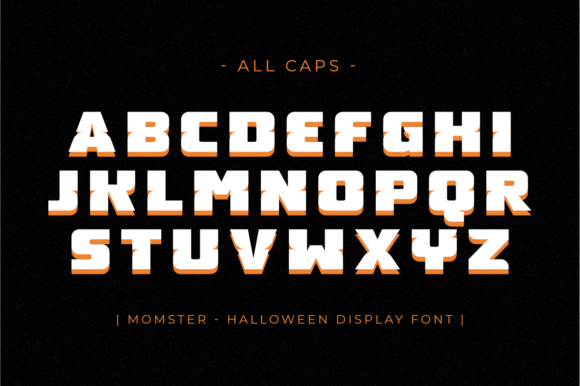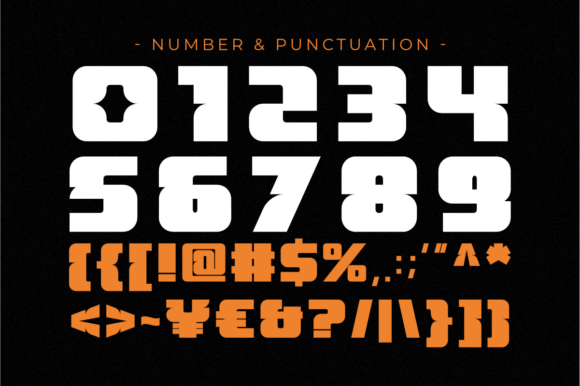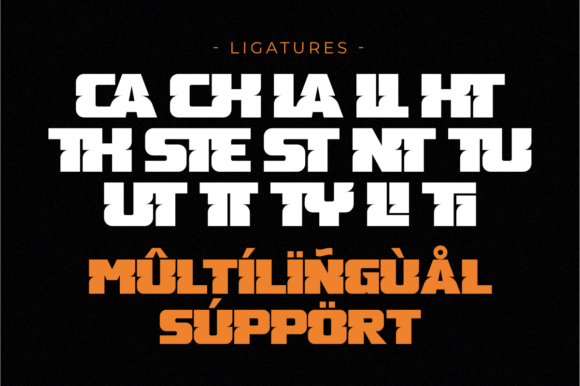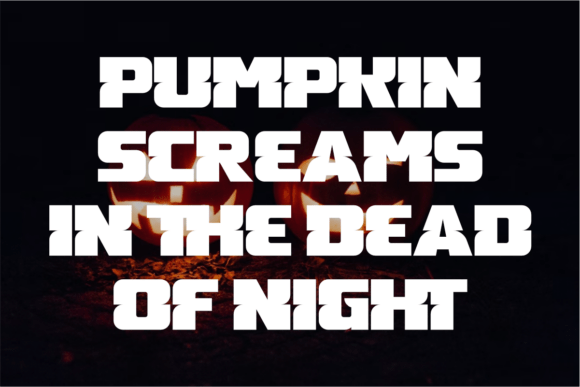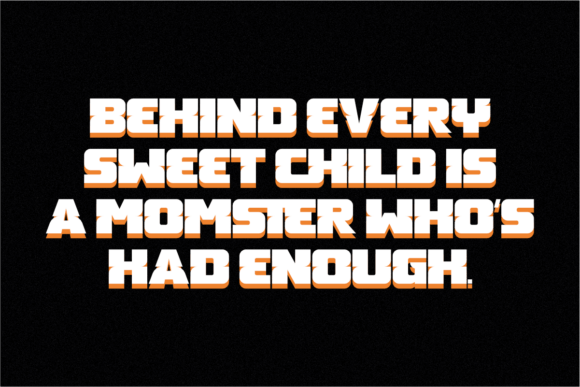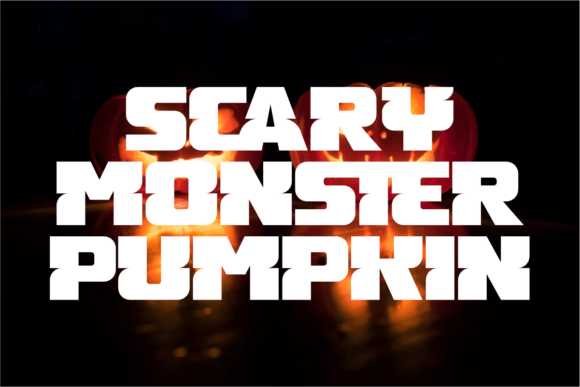
Introduction to Momster Font
As designers, we’ve all been there – staring at a blank canvas, struggling to find the perfect font to bring our creative vision to life. The search is over, thanks to the Momster Font, a bold and captivating display font that’s sure to make your next project stand out. With its clean-cut aesthetic and thick, blocky letterforms, Momster Font is the perfect choice for designers seeking a high-quality font that exudes power and sophistication.
Whether you’re working on a movie poster, event invitation, or scary branding project, Momster Font is an excellent design resource that will help you create a chilling visual impact. And the best part? It’s available for free download, making it an accessible and versatile tool for designers of all levels. With its PUA-encoded features, you’ll have effortless access to all glyphs, swashes, and alternate characters, allowing you to customize your creations with ease and precision.
So why settle for a generic font when you can unleash the full potential of your creative project with Momster Font? Its unique blend of style and substance makes it an invaluable asset for designers seeking to create truly memorable designs.
Key Features of Momster Font
- Unique, playful characters with a transparent background, ideal for adding a fun touch to designs
- Perfect for use in digital designs, including web graphics, social media posts, and advertising materials
- Designed to be highly legible, even at small sizes, making it an excellent choice for titles and headings
Honest Review: Momster Font
I recently came across the Momster Font, and I’m excited to share my thoughts on this design resource. As a designer, I’m always on the lookout for high-quality fonts that can elevate my creative projects.
- Unique and playful style: The Momster Font has a distinctive, whimsical feel that’s perfect for adding some personality to your designs.
- Transparent background: This allows for easy editing and customization of the font, which is a big plus for me.
- Limited character set: While the font is free, the character set is relatively small, which may limit its use for certain projects.
- Not ideal for formal designs: The playful style of the Momster Font may not be suitable for formal or professional projects.
Overall, I think the Momster Font is a great addition to any designer’s toolkit. While it may have some limitations, its unique style and free download make it a valuable resource for creative projects. I’d definitely recommend it for designers looking to add some personality to their work.